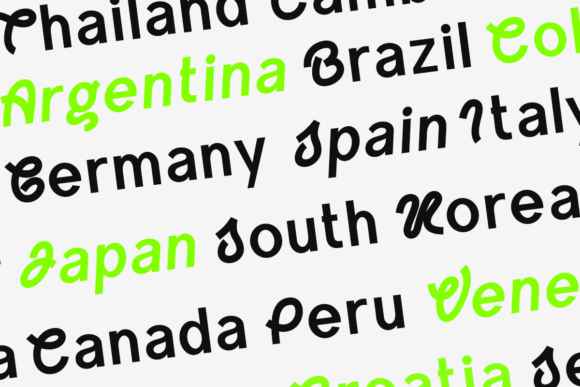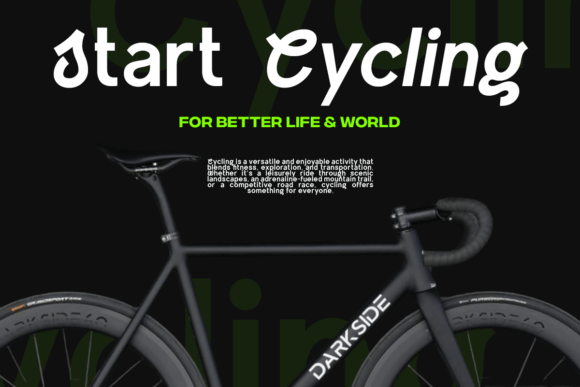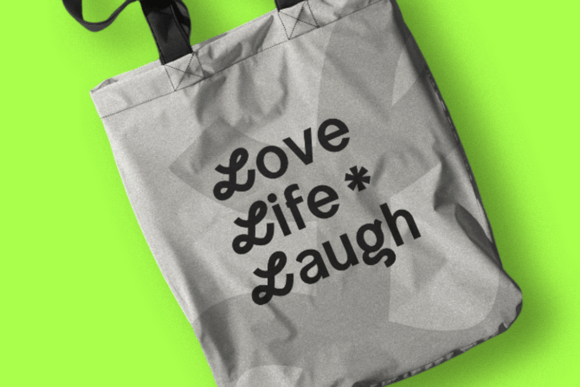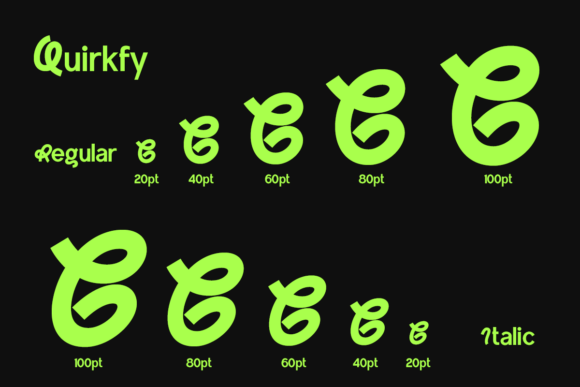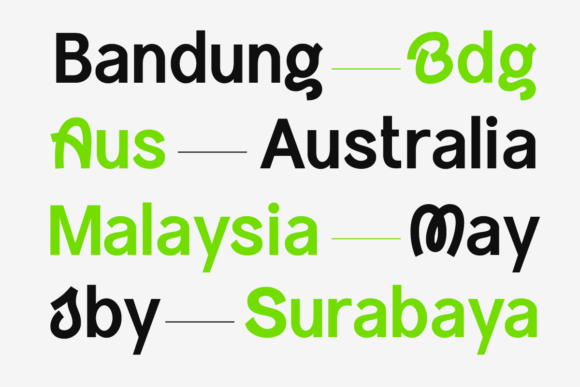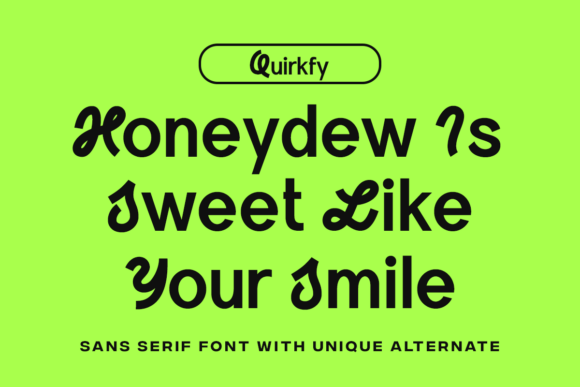
Unlocking the Power of Quirkfy Font
Have you ever stared at a blank page, feeling stuck and uninspired? The cursor blinks away, taunting you to create something truly remarkable. That’s when the spark of creativity strikes – a burst of energy and imagination that propels you forward. For designers, this moment is a gift, and the right tools can amplify its potential. Enter the Quirkfy Font, a bold sans-serif font that adds a dash of personality to any design project.
Quirkfy Font is more than just a design resource – it’s a high-quality tool that can elevate your creative project from ordinary to extraordinary. With its unique alternate letterforms and clean minimalism, this font is perfect for headlines, branding, packaging, and editorial design. Whether you’re working on a project with a transparent background or a bold, eye-catching visual composition, Quirkfy Font is sure to impress.
Key Features of Quirkfy Font
- Unique, Hand-Drawn Design: Quirkfy Font offers a one-of-a-kind, creative project design that adds a personal touch to any project.
- Transparent Background Option: This feature allows designers to easily create custom backgrounds or layer the font over any image, making it a versatile design resource.
- Customizable: Quirkfy Font can be easily customized to fit your specific design needs, whether it’s for a creative project or a commercial design.
Honest Review: Quirkfy Font
I recently had the chance to work with the Quirkfy Font in a creative project and I must say, it’s been a game-changer for my design work. The font’s unique style and high quality made it the perfect choice for a client’s branding project.
Here are some of the things that work well with the Quirkfy Font: ✨
- Unique style that adds a touch of personality to any design
- High-quality design that ensures crisp and clear text
- Font size limitations may affect readability on smaller screens
- Some users may find the font’s style too quirky or unconventional
Overall, I’m very impressed with the Quirkfy Font and would highly recommend it to designers looking for a high-quality, unique font to add some personality to their projects. The free download option and transparent background make it a versatile design resource that’s easy to use and integrate into any design.
To get the most out of Quirkfy Font, use it as a design resource for your creative projects. Experiment with different font sizes, colors, and combinations to create unique and eye-catching designs.
Quirkfy Font is ideal for use in presentations, social media graphics, and branding materials. Its transparent background feature makes it perfect for creating overlays and graphics with a high-quality look.